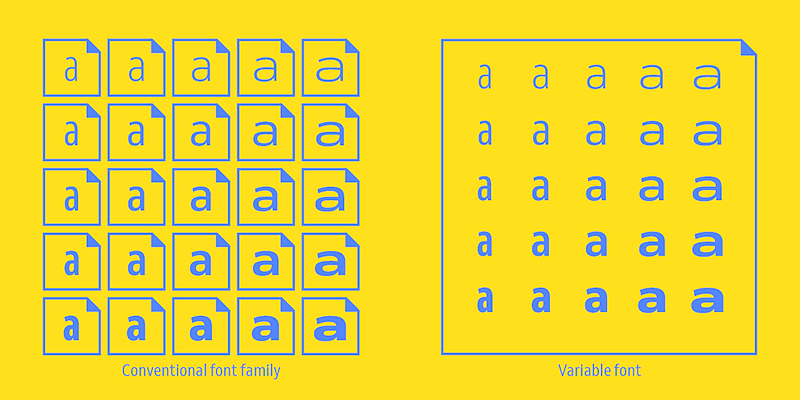
Venn Font Free Download is a modern, geometric sans-serif typeface that combines simplicity with strong visual appeal. Its clean lines, balanced proportions, and minimalistic design make it a great choice for branding, logos, web design, and any project that requires a contemporary, professional look.
Venn is highly versatile, working well in both large display text and smaller body copy. It integrates seamlessly with design software like Adobe Illustrator, Figma, Canva, and Photoshop, allowing you to use it across both digital and print media.